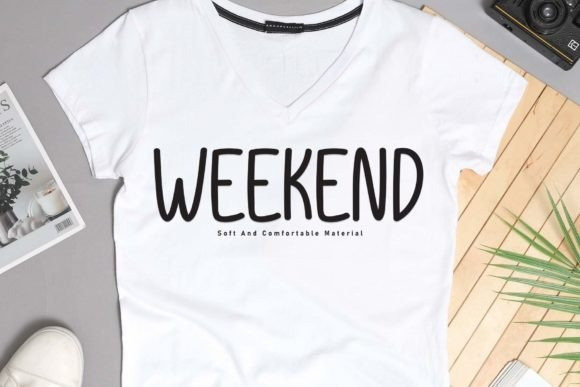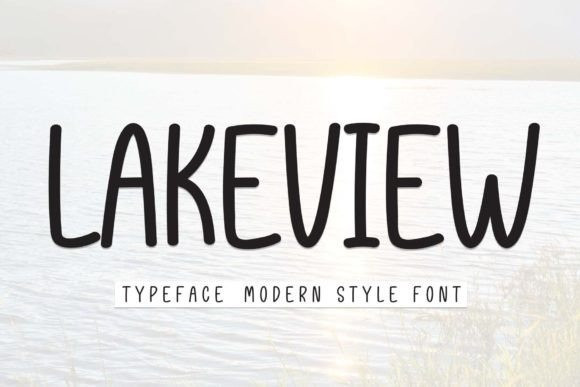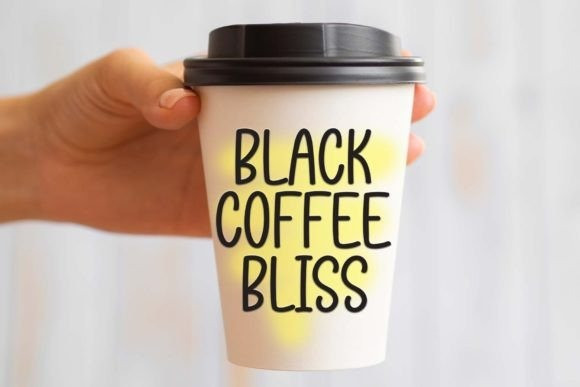
Lakeview Font
Lakeview Font is a sweet and friendly handwritten font. Cute and versatile, this font is ideal for writing wedding invitations, cards, or any other design that might need a fun touch!